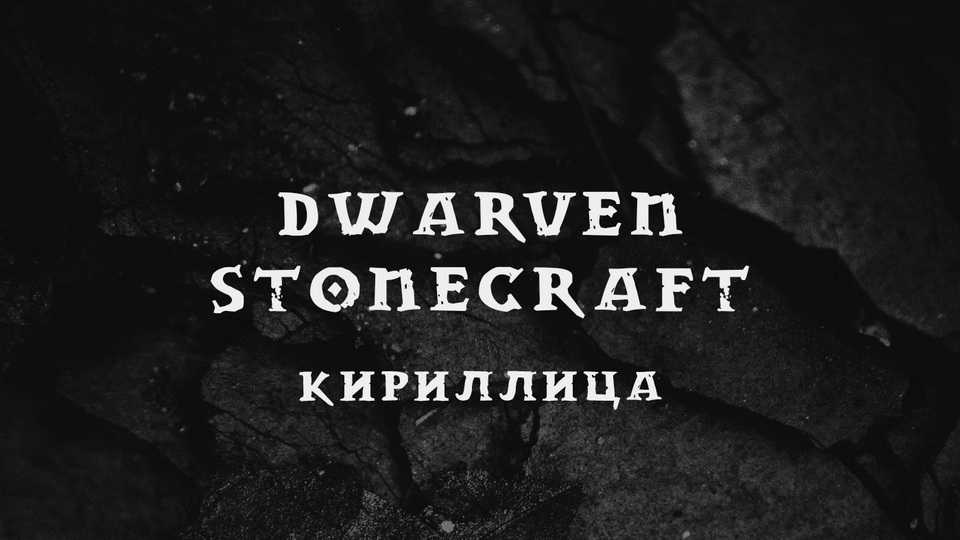
Download Dwarven Stonecraft font, a distressed and textured typeface with an antique look inspired by the letters carved in stone plates. With its rough character Dwarven Stonecraft is great for posters, packaging, social media and more.